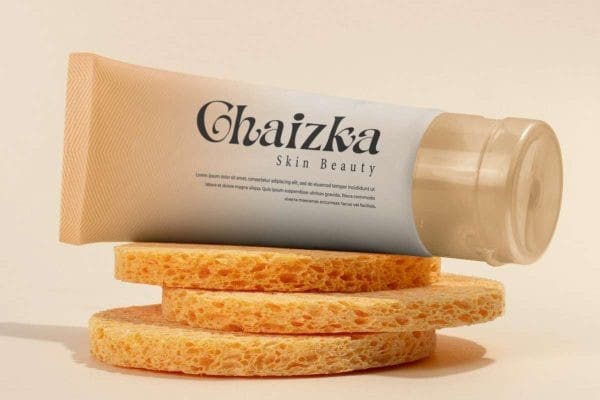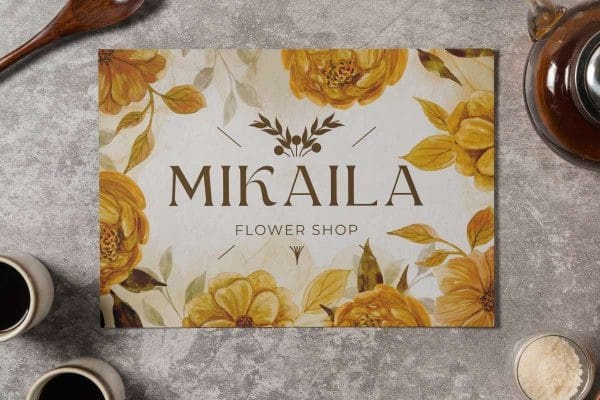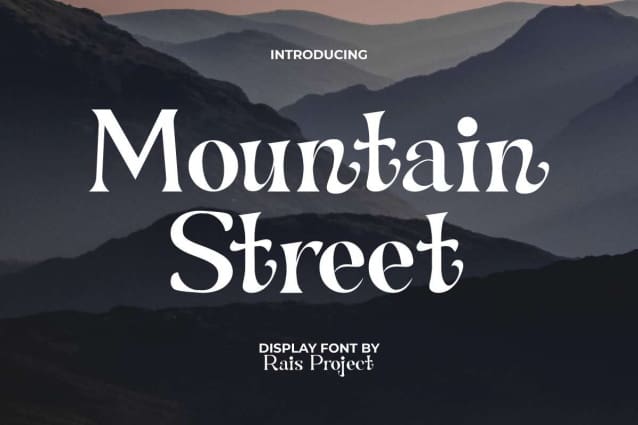
Mountain Street Font
Mountain Street Font is a stylish serif display font. The little waves at each end of the letters make it look modern and a bit vintage at the same time. It will be good for any designs, such as billboard, brand logo, business card, cover, custom design, invitation, label, magazine, menu, poster, product packaging, quote, signage, web, and more!
Mountain Street Font includes a full set of Uppercase and Lowercase Letters, Numerals, Punctuation, and Symbol. This stylish font will be suitable for various industries, such as accessories, café, fashion, florist, game, event, movie, photography, printing, publishing, restaurant,etc.